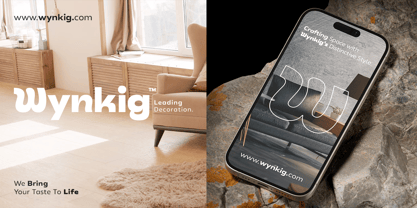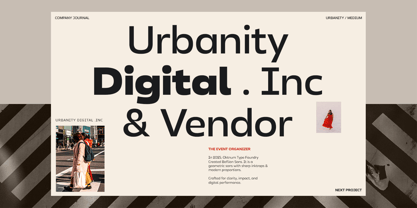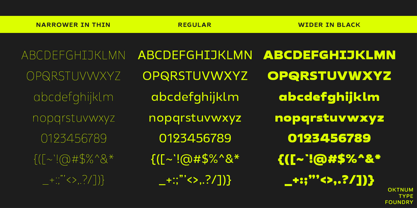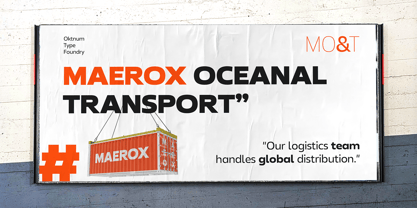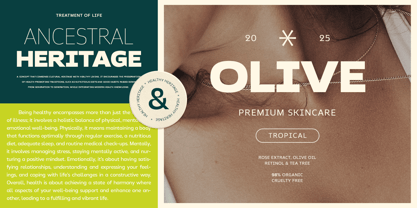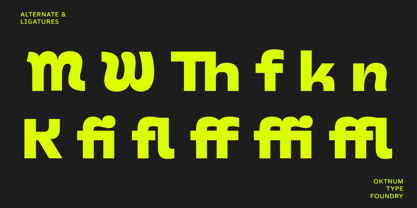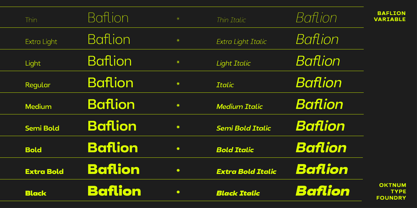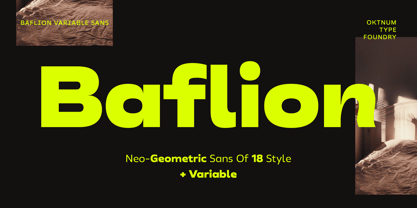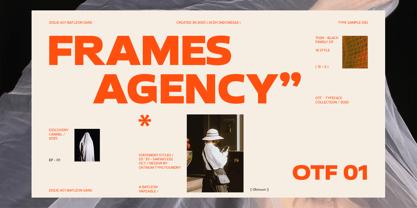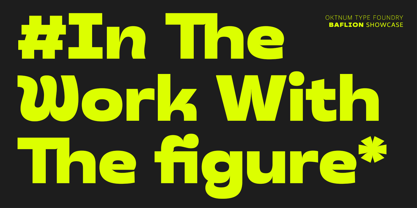
Baflion Sans
by Oktnum Type Foundry
The Baflion Sans Font Family was designed by Sarwo Edi and published by Oktnum Type Foundry. Baflion Sans contains 19 styles.
Baflion Sans is a modern sans-serif typeface that blends geometric structure with humanist warmth. Designed with versatility at its core, Baflion Sans features a clean, refined aesthetic suitable for a wide range of contemporary design needs—from editorial layouts and branding to digital interfaces and signage.
Crafted with meticulous attention to detail, each letterform in Baflion Sans balances sharpness and softness. The geometric base provides clarity and consistency, while subtle ink traps, open counters, and thoughtful modulation of curves introduce rhythm and personality. Its moderate contrast and slightly flared terminals add a distinctive touch, making it stand out without losing legibility.
Baflion Sans supports multilingual Latin scripts and is optimized for both print and screen. Available in a range of weights from Thin to Black, including matching italics, it provides ample typographic flexibility for expressive headings and readable body copy alike.